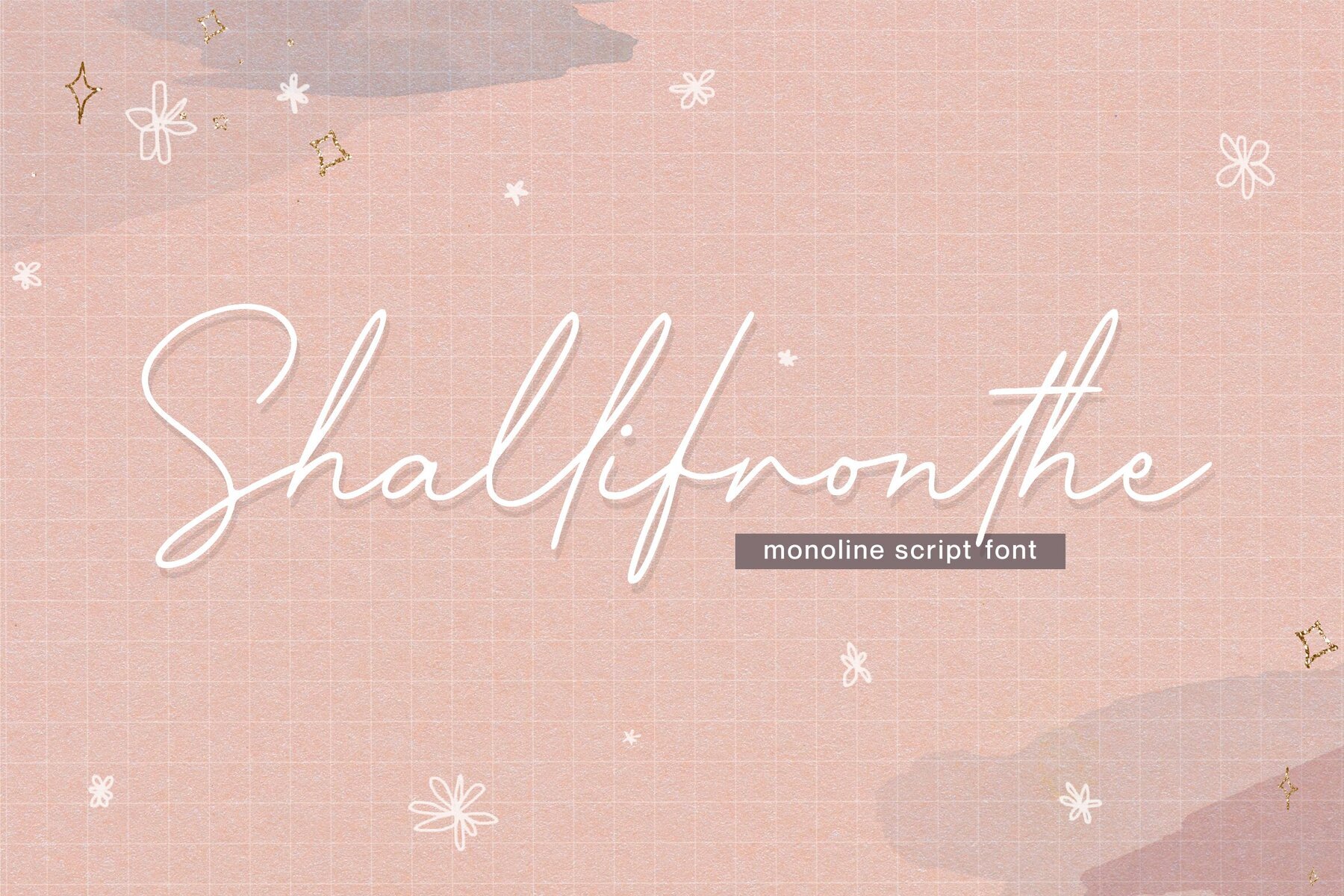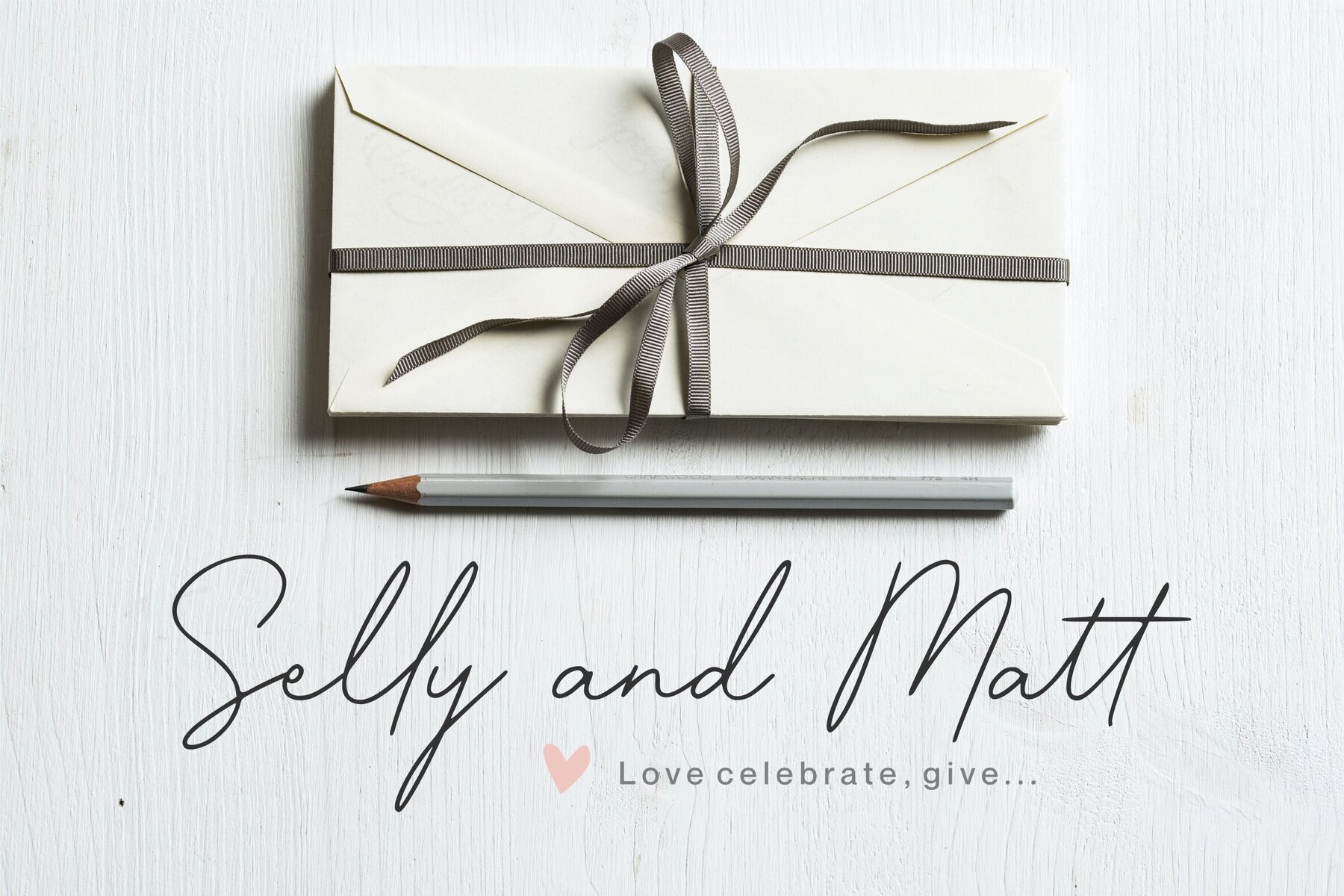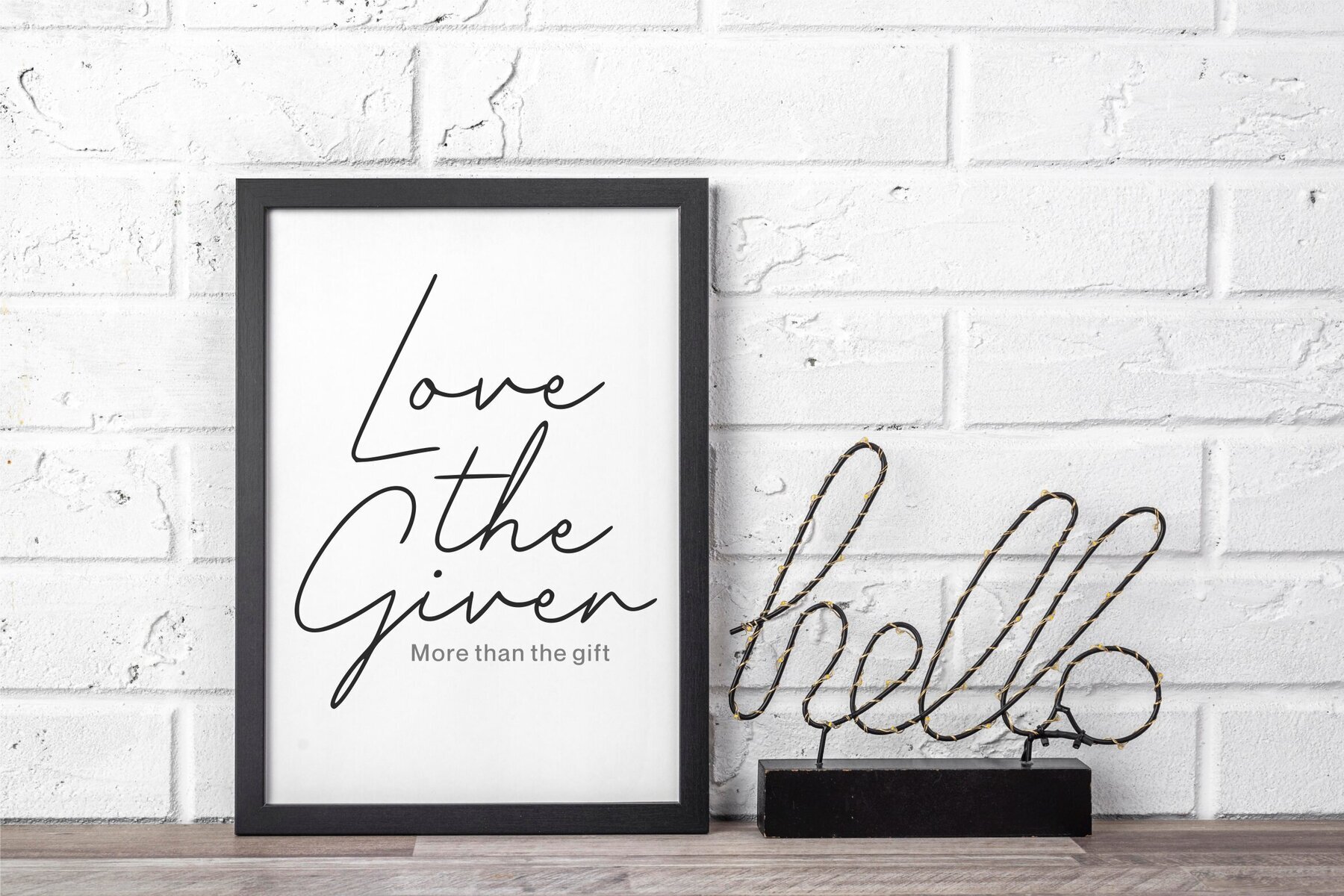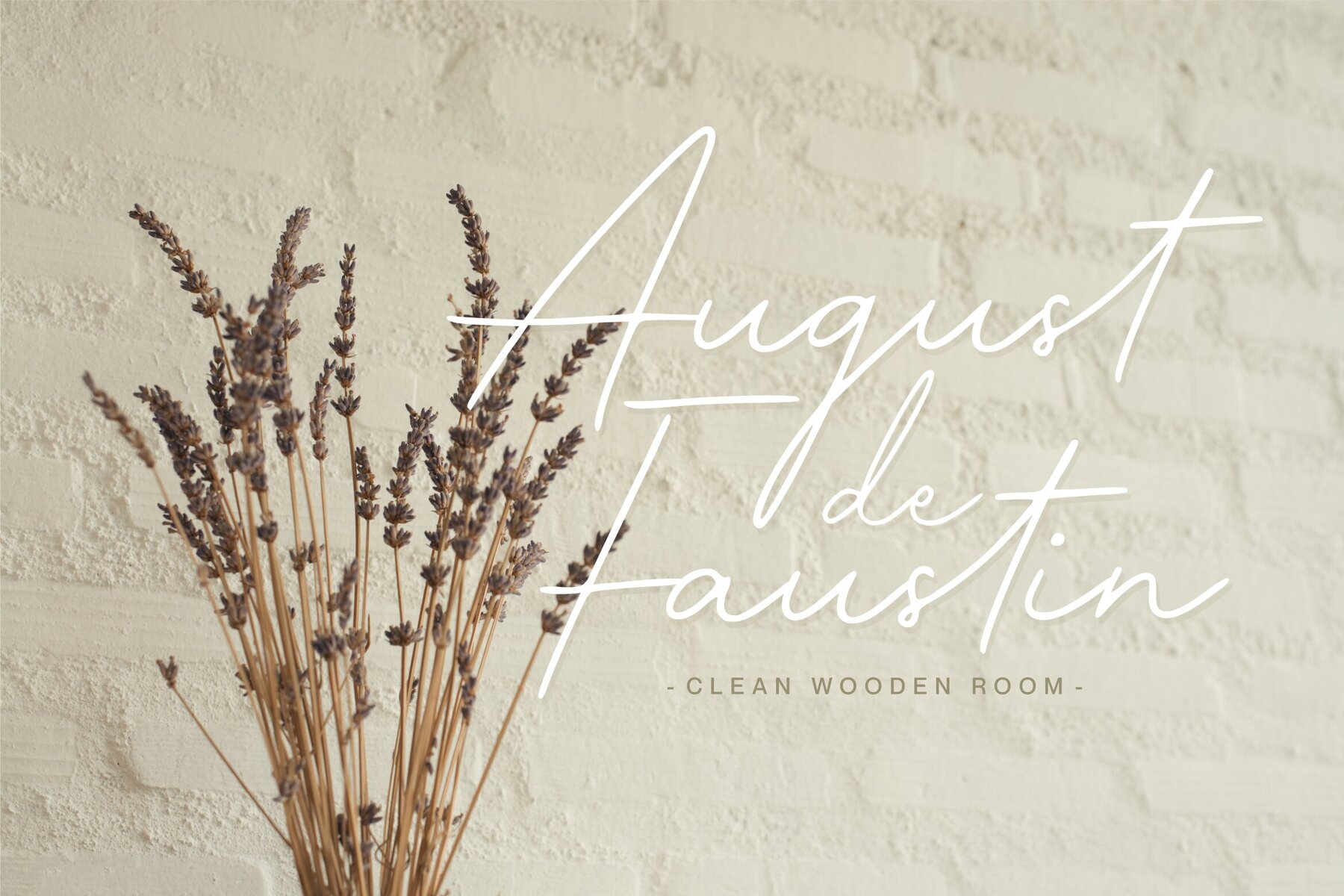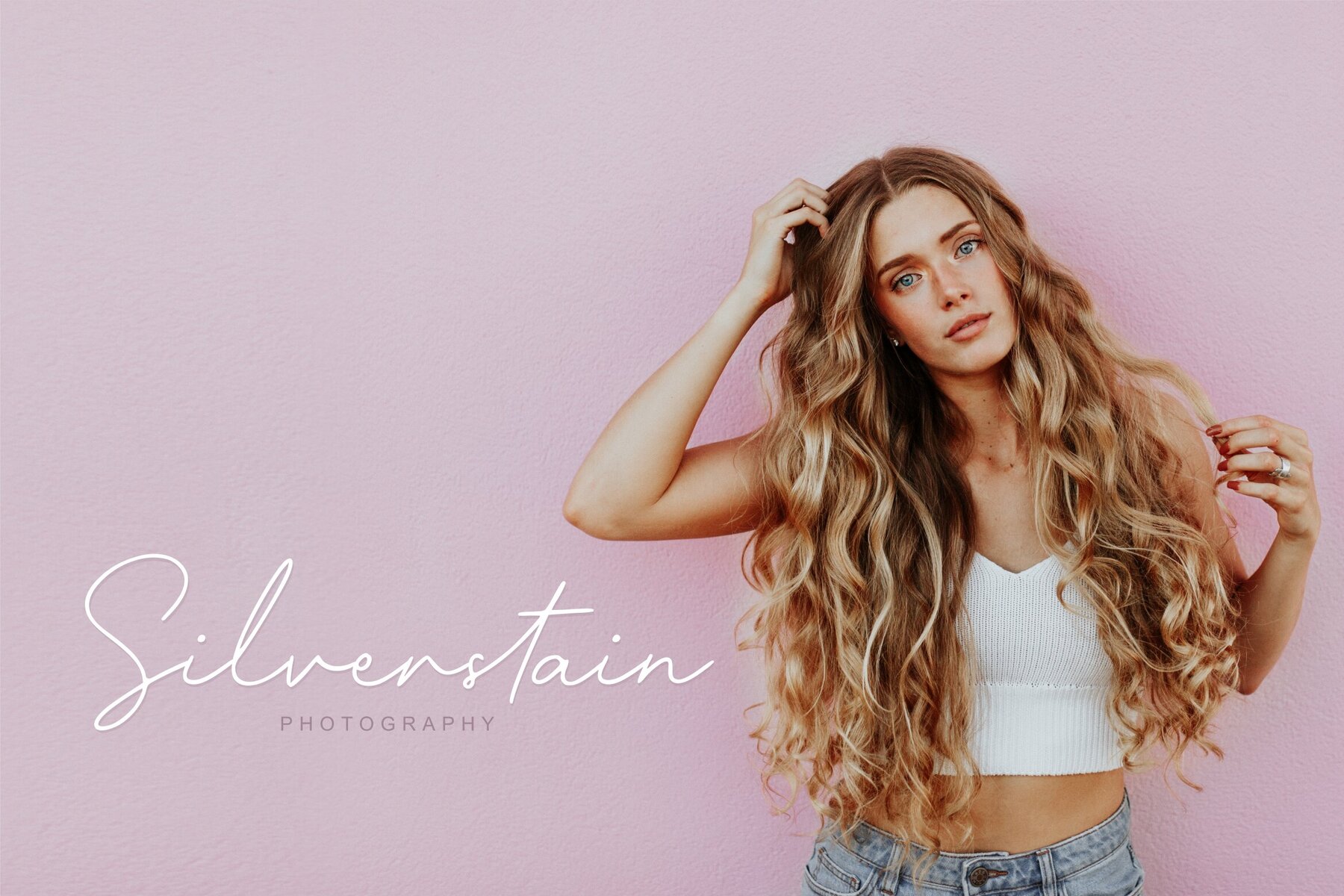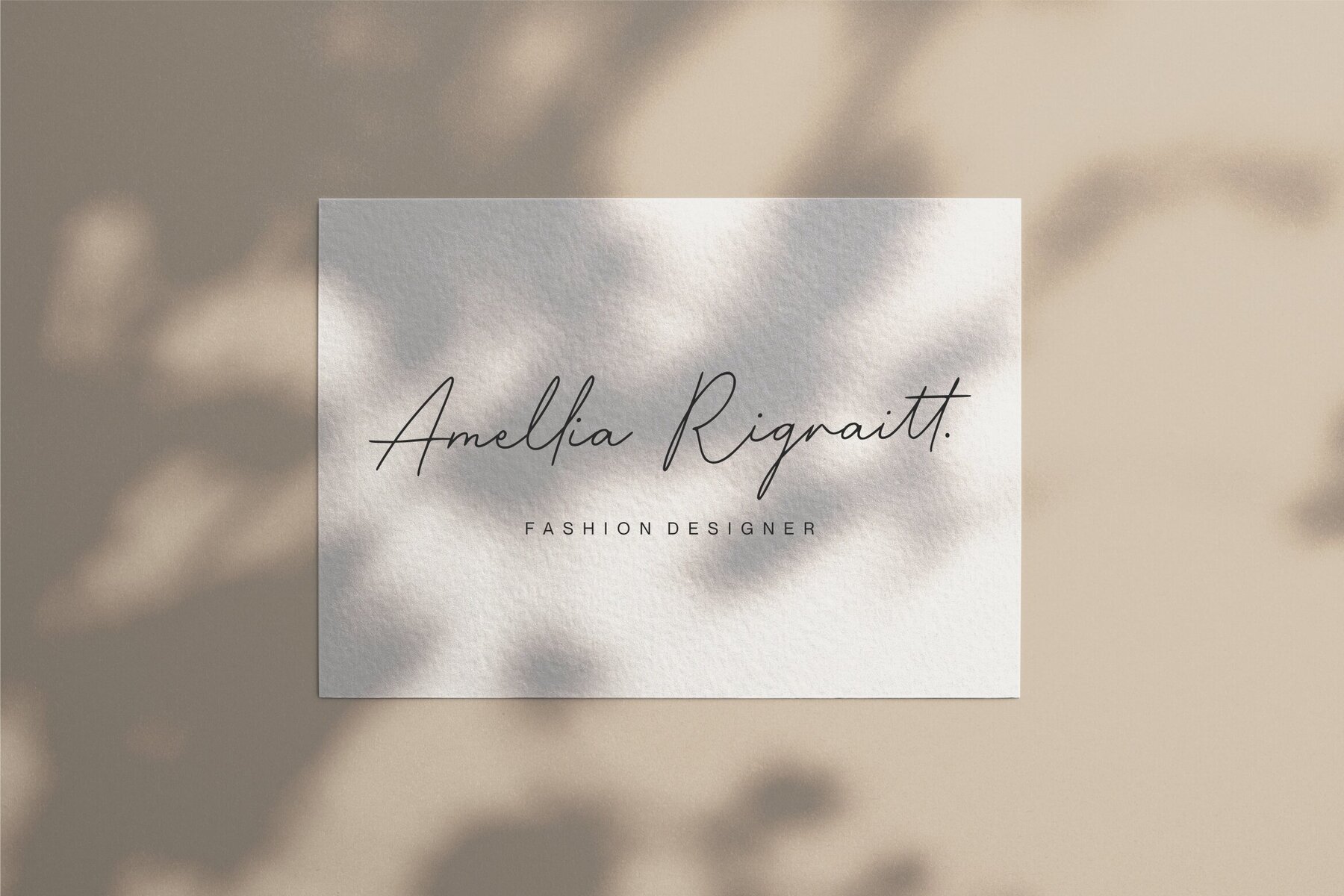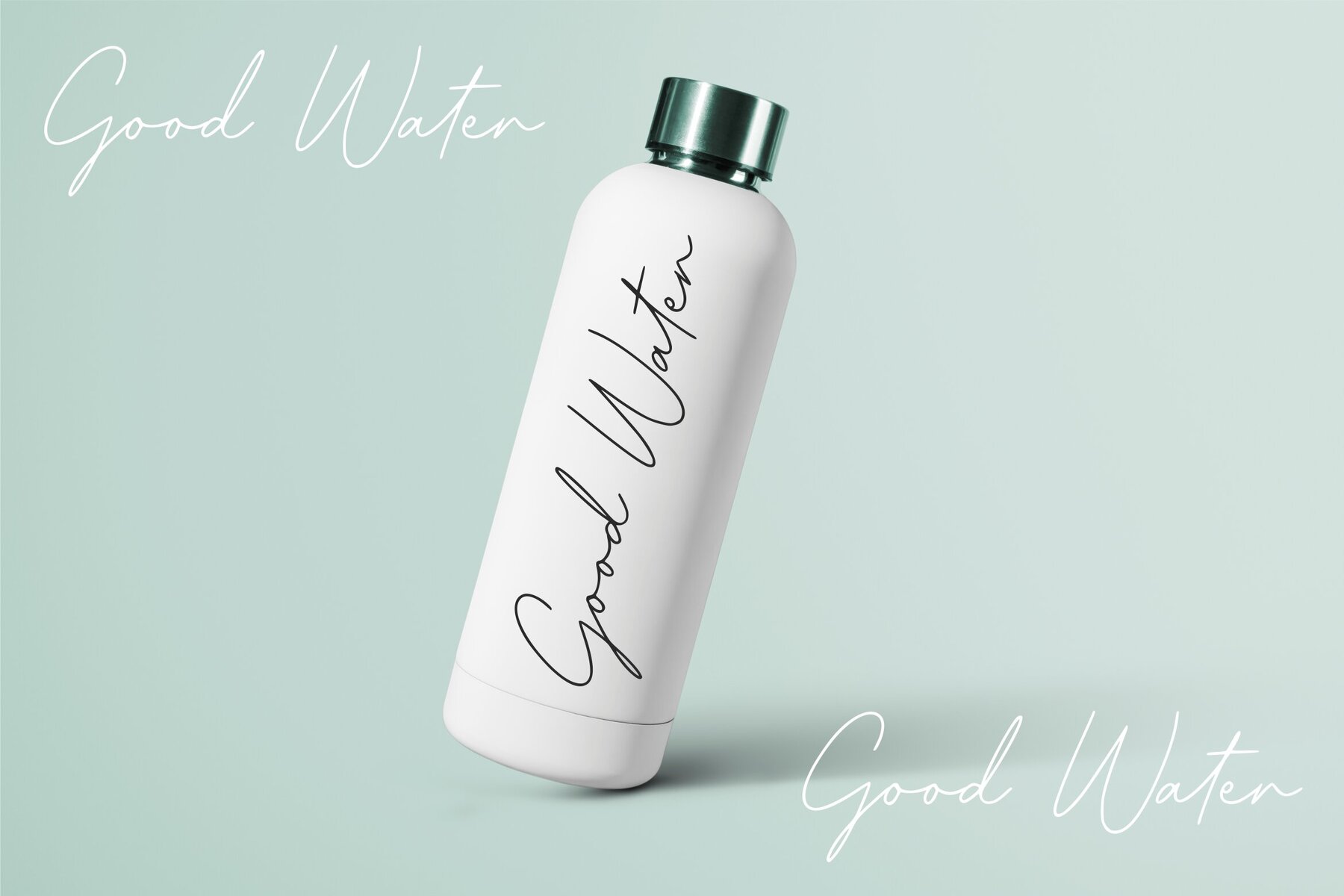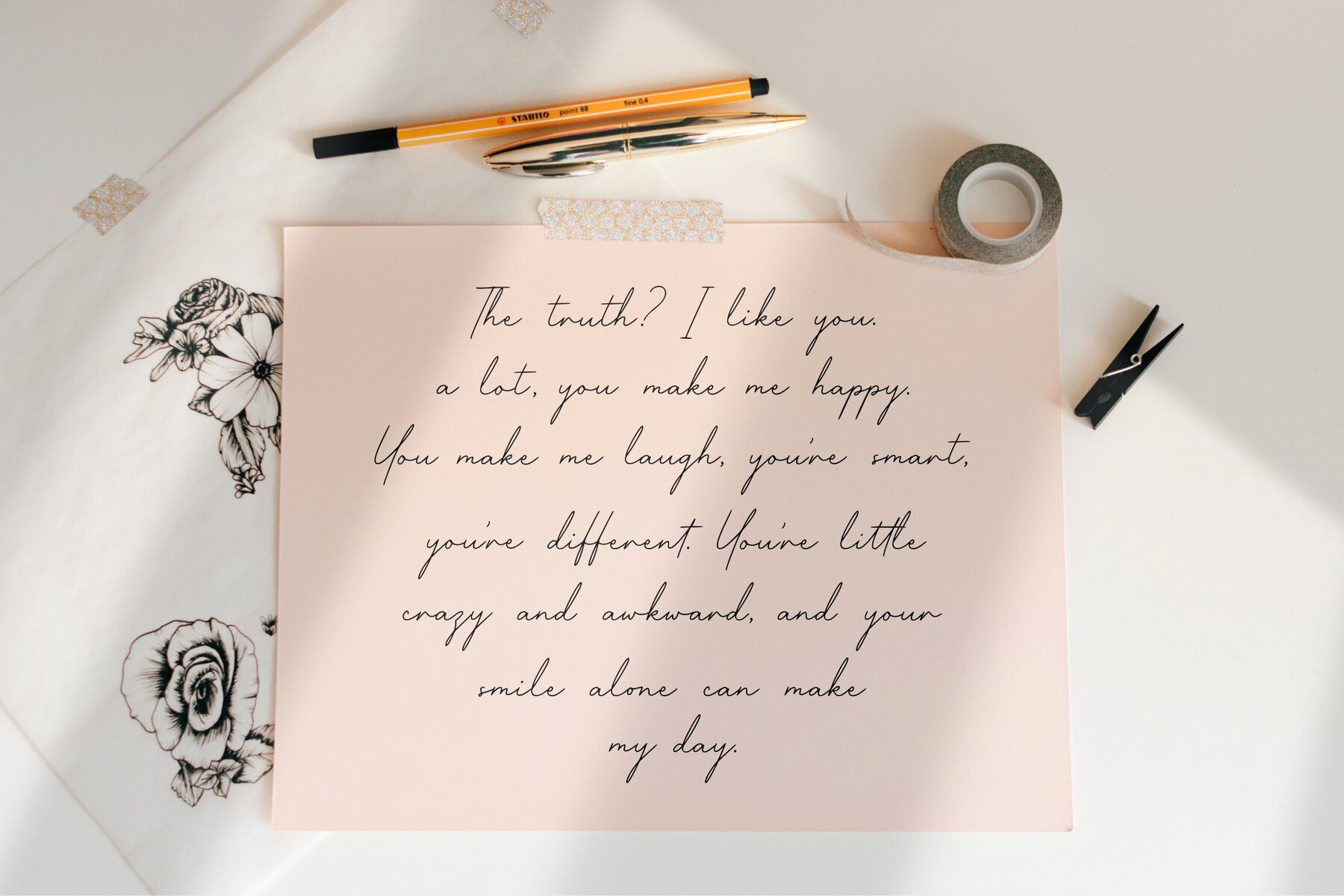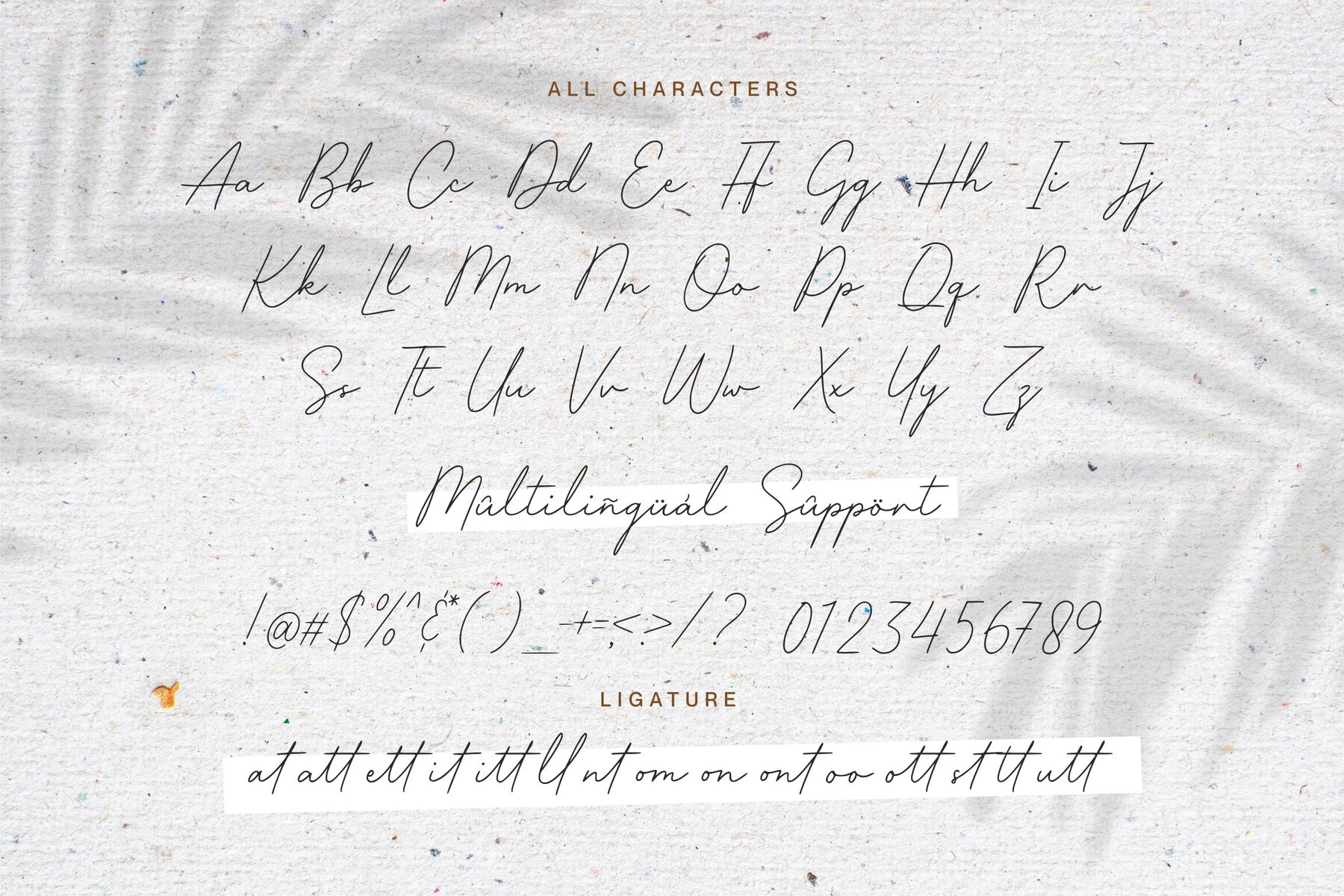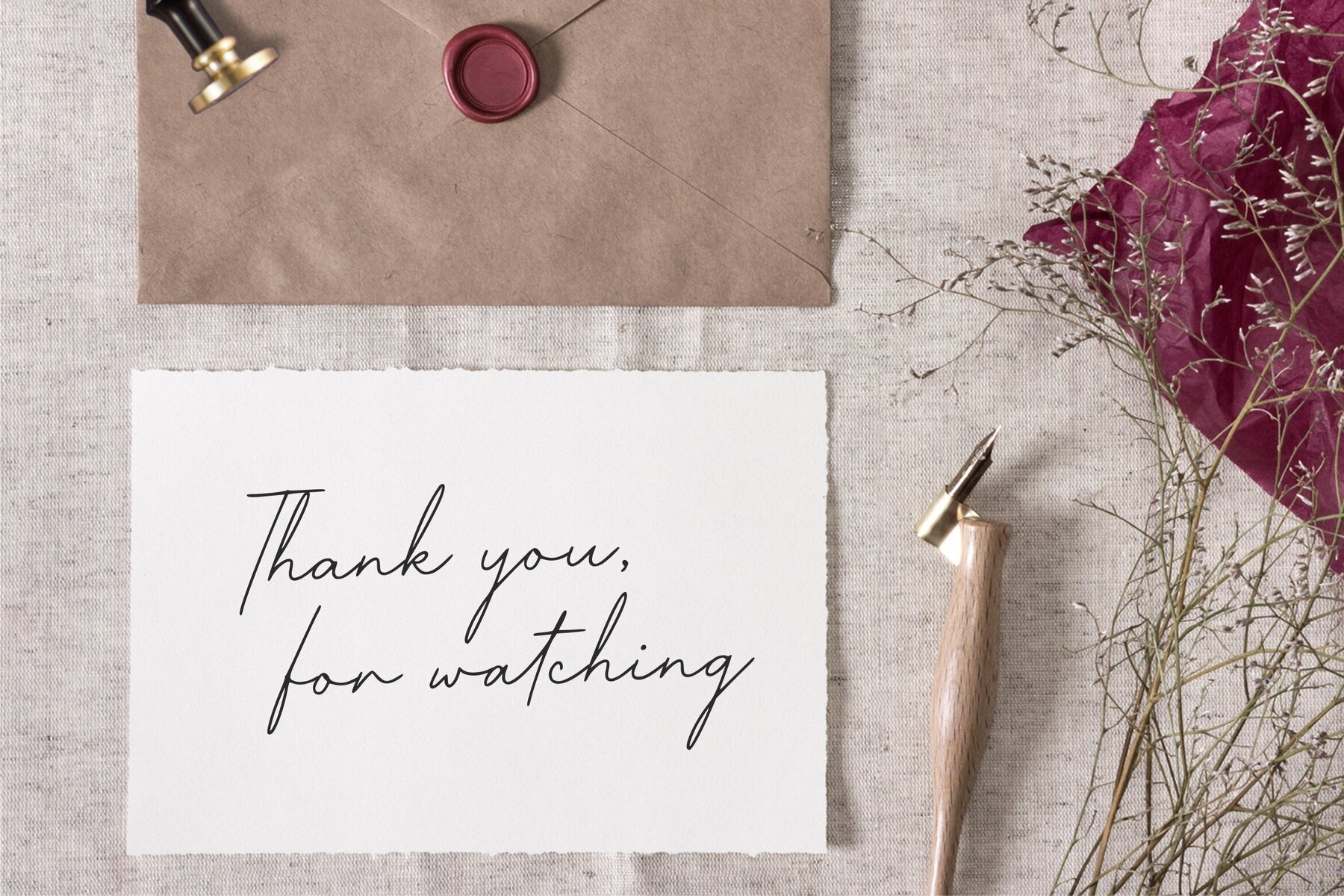
Shallifronthe Font
Shallifronthe's sophisticated flair makes it ideal for a range of applications, from product packaging to editorial design. Whether you're working on branding projects, crafting unique magazine layouts, or enhancing social media visuals, this font offers the perfect blend of style and versatility. Features:Shallifronthe: An Elegant Choice for Diverse Design Needs